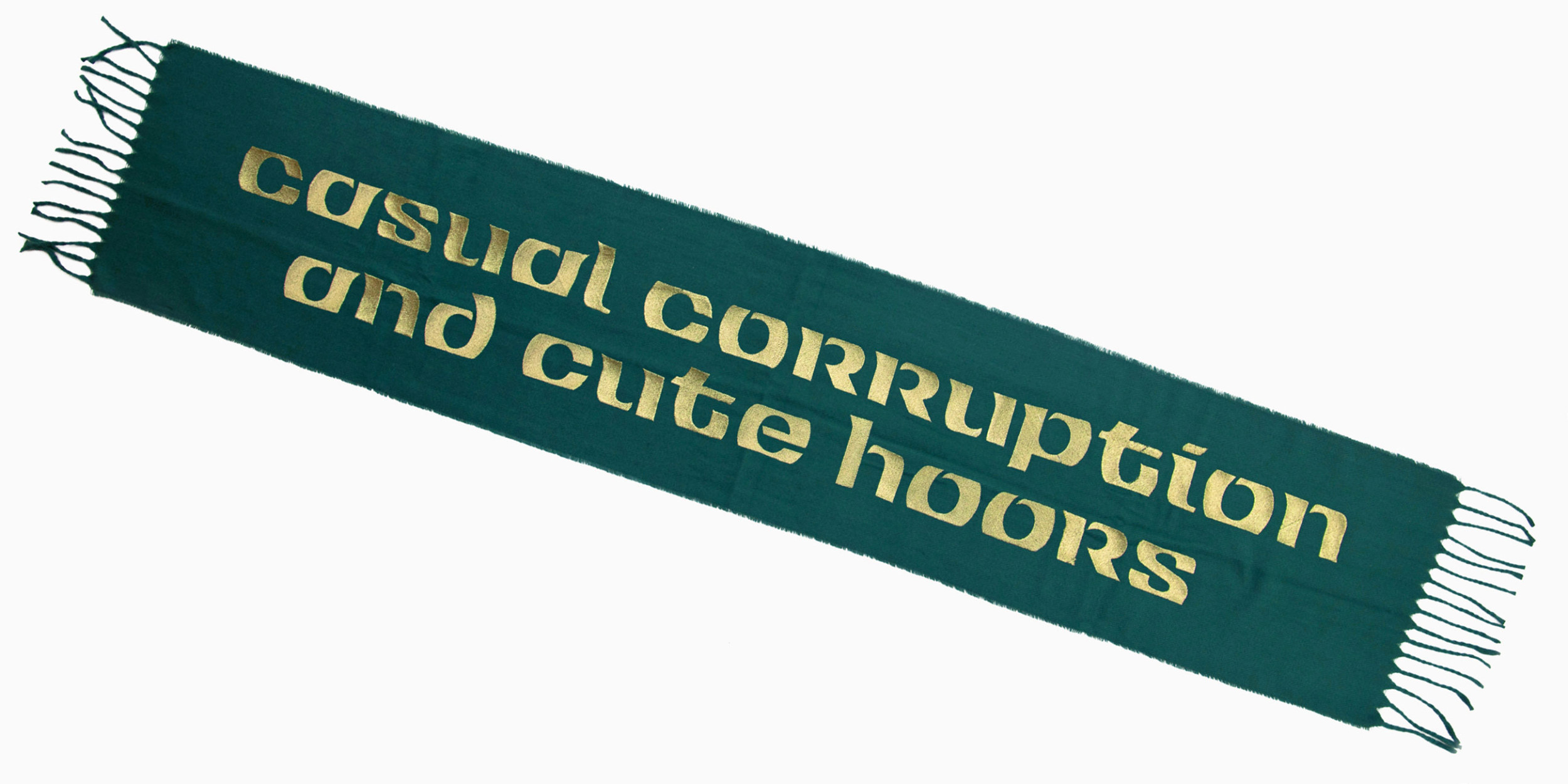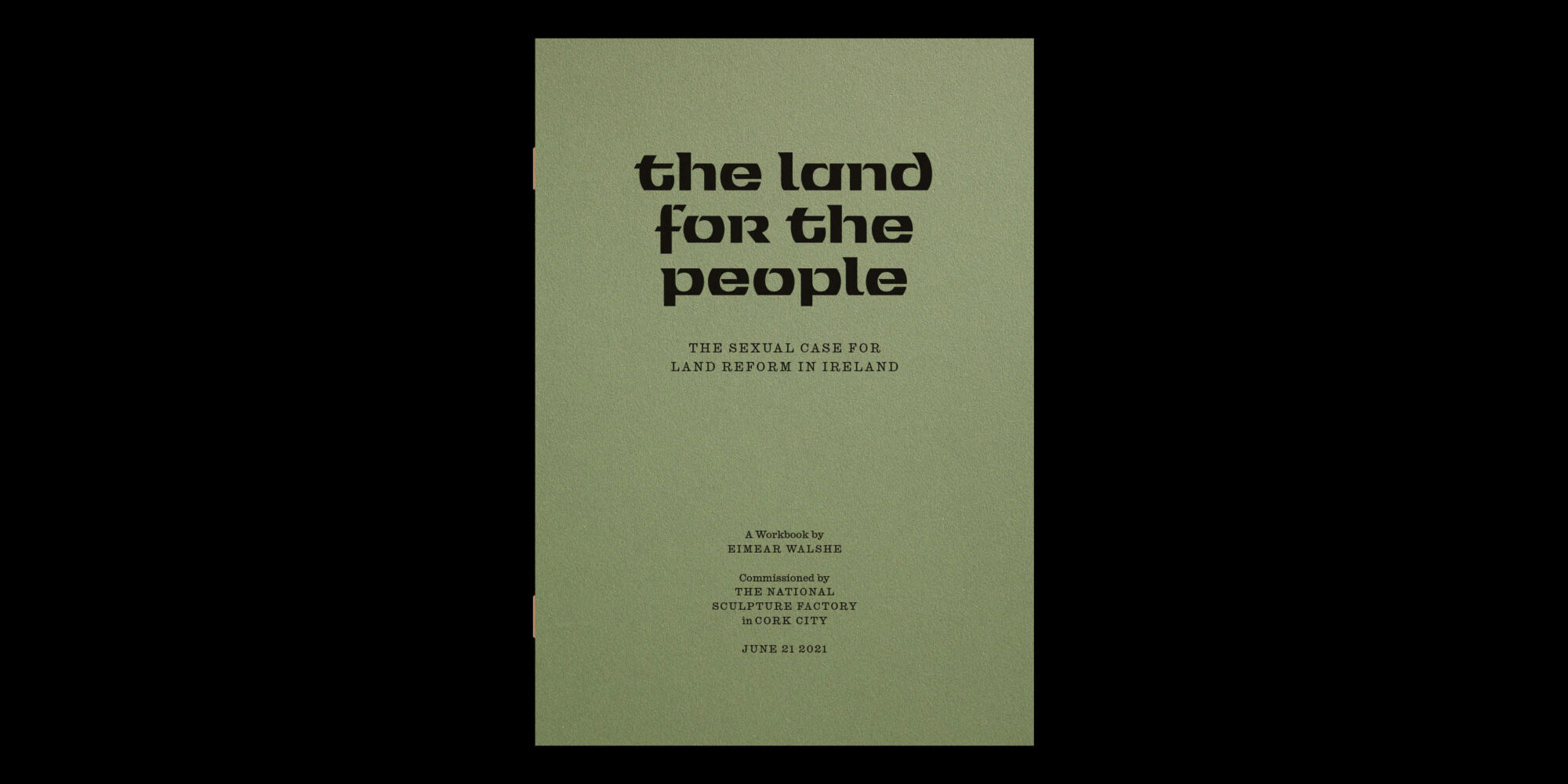
Jarlath
Though it had only a limited release as dry transfer type in 1974, Jarlath Hayes’s Tuam Uncial became an icon of Irish Modernism. Its design was based on hacked Helvetica Bold; Hayes sliced off the tops and bottoms of the letters to produce forms reminiscent of the wide, pen-formed scripts of old Insular texts. This digital revival, designed by Max Phillips under the supervision of Hayes’s daughter, supports over 150 languages and features ligatures, directional arrows, and a fuller range of punctuation. To improve readability, we’ve tempered the extreme squarishness of the original forms, reduced their contrast, and provided more generous letterspacing. Early drafts of the original Tuam Uncial lacked the published version’s semiserifs, so we’ve added a sans version, as well as italic and sans italic styles.